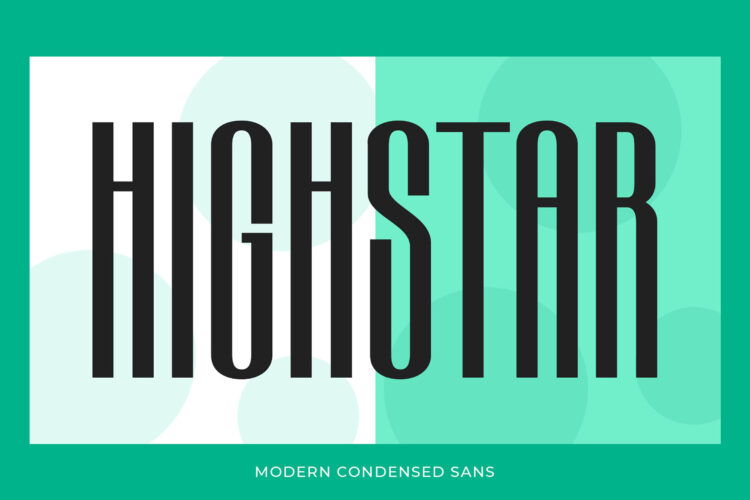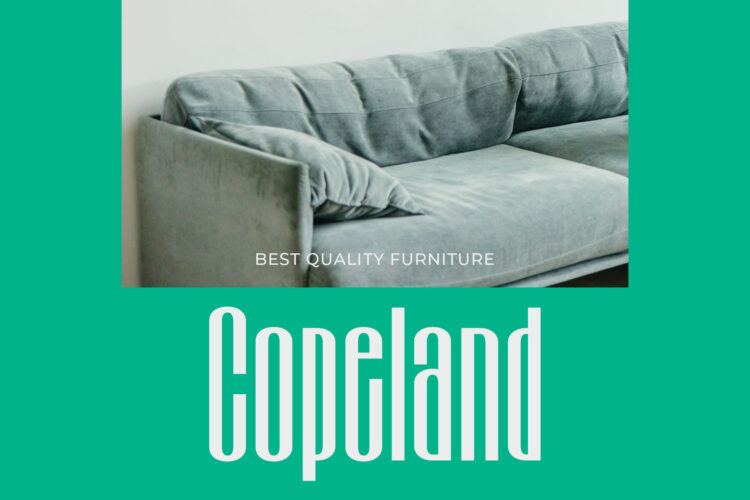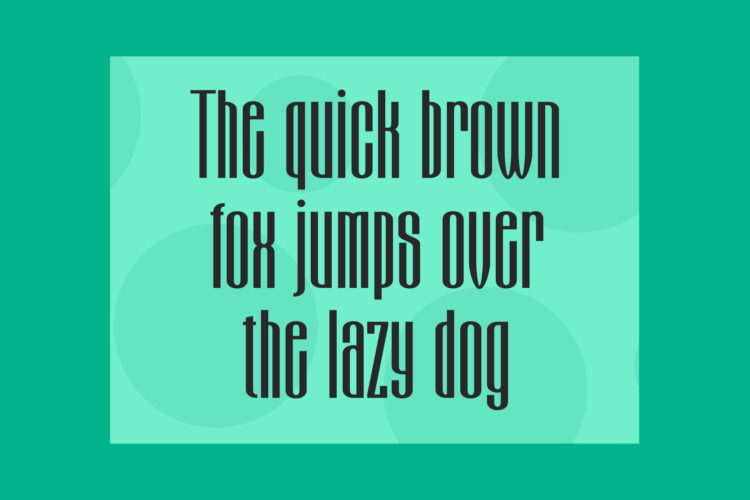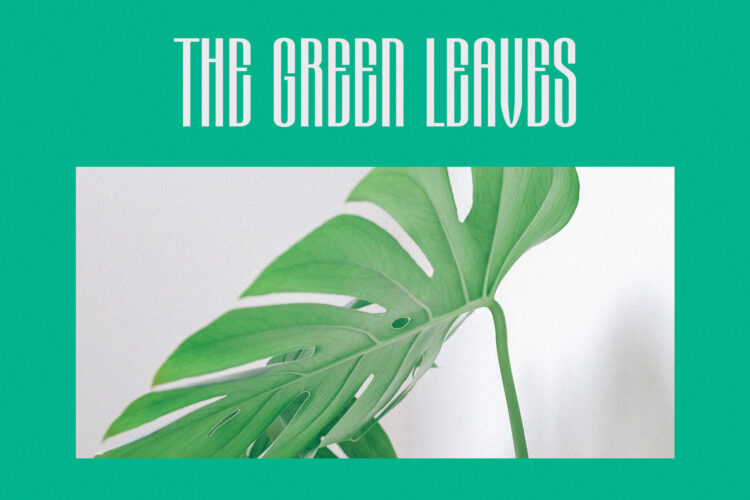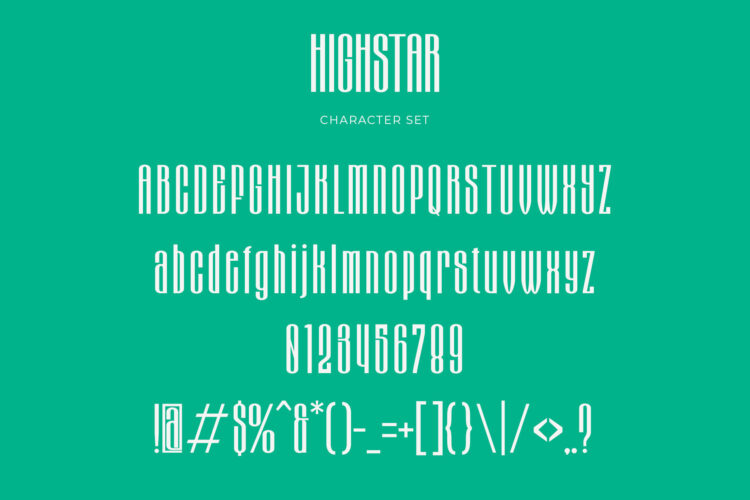
Introducing our new Highstar, modern sans serif font with elegant style this is perfect for branding, logos, invitation, magazines, product packaging and more.
Highstar – Modern Condensed Sans